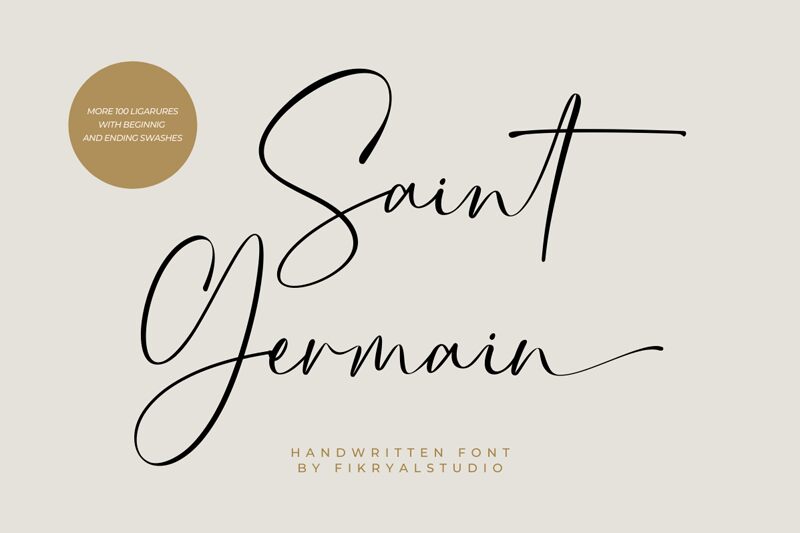
Saint Germain
Saint Germain is the perfect font for any project that needs a touch of elegance and sophistication. Designed by Fikryal studio, this beautiful handwritten font style exudes a sense of class with its delicate curves and refined strokes. The extra-light weight of Saint Germain adds an airy feel to your text, making it perfect for use in branding materials, wedding invitations, or any project that requires a subtle yet graceful touch. With its unique character and versatility, Saint Germain is sure to elevate your designs to the next level.